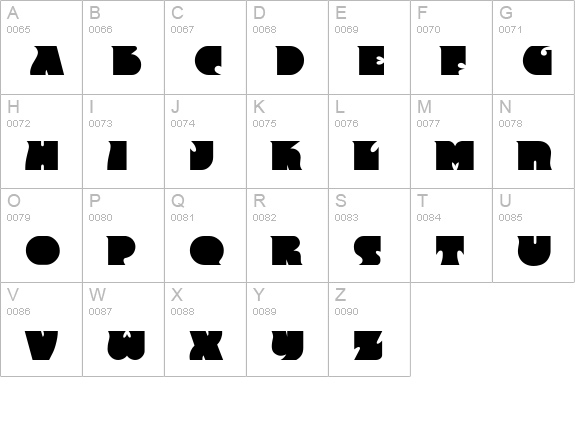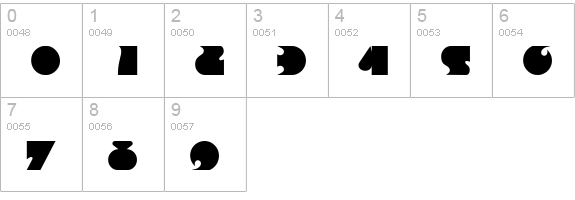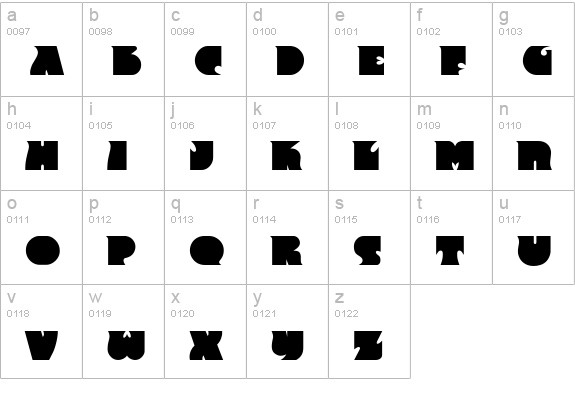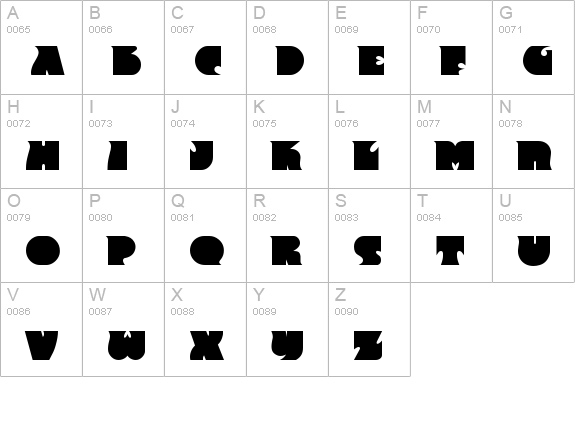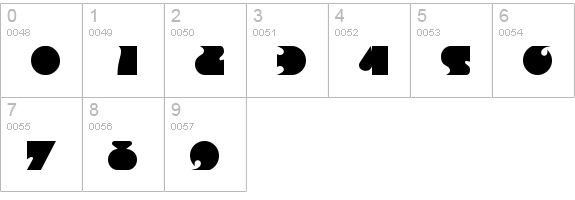
F820-Deco-Bold is a strong, high-contrast variant in the F820 typeface family \xE2\x80\x94 well suited to headlines, attention-grabbing titles, and strong calls-to-action.
Introducing F820-Deco-Bold font, a modern and stylish typeface that exudes sophistication and elegance. This font features clean lines, sharp edges, and a bold presence that makes it perfect for creating eye-catching designs. With its unique blend of art deco and contemporary influences, F820-Deco-Bold font adds a touch of luxury to any project. Best of all, this stunning font is available for free download at FontsMarket.com. Whether you're working on branding, packaging, posters, or any other design project, F820-Deco-Bold font is sure to make a statement. Don't miss out on the opportunity to elevate your designs with this exquisite typeface. Download F820-Deco-Bold font today and let your creativity soar!